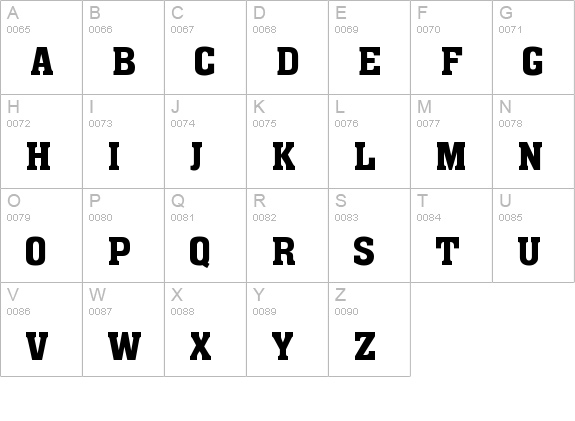
akaChen Font Details
akaChen font is a stunning and versatile typeface that combines elegance with a touch of modernity. Its sleek and sophisticated design makes it perfect for a wide range of projects, from branding and advertising to web design and editorial work. This font features clean lines and beautifully crafted letterforms, giving it a timeless yet contemporary feel. The subtle curves and sharp edges create a harmonious balance that is both visually appealing and highly legible. One of the standout features of akaChen font is that it is available for free. You heard that right - this incredible font can be downloaded at no cost from FontsMarket.com. This means that designers and creatives alike can access this exceptional typeface without breaking the bank. Whether you're a professional designer looking to enhance your portfolio or an aspiring creative just starting out, akaChen font is the perfect addition to your typography toolkit. Its versatility and free availability make it a must-have for any project or design endeavor. So why wait? Head over to FontsMarket.com and download akaChen font today. Unleash your creativity and elevate your designs with this remarkable and freely accessible typeface.